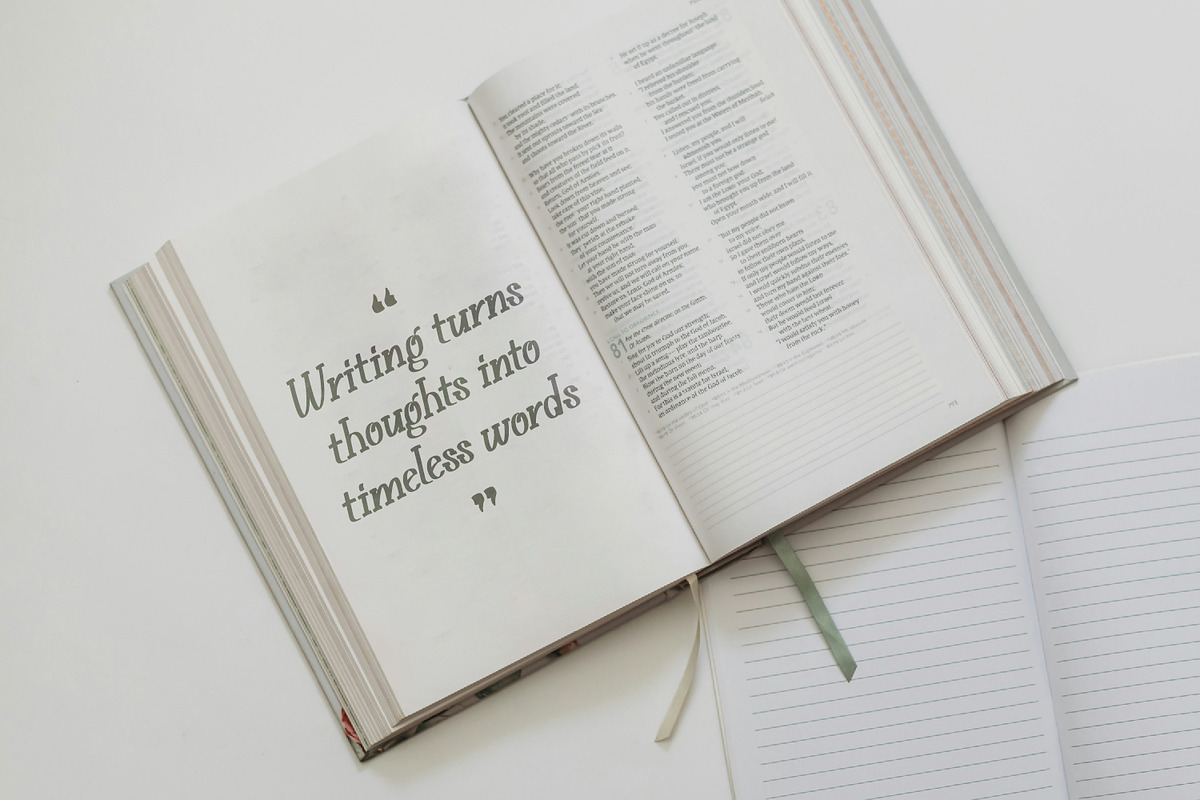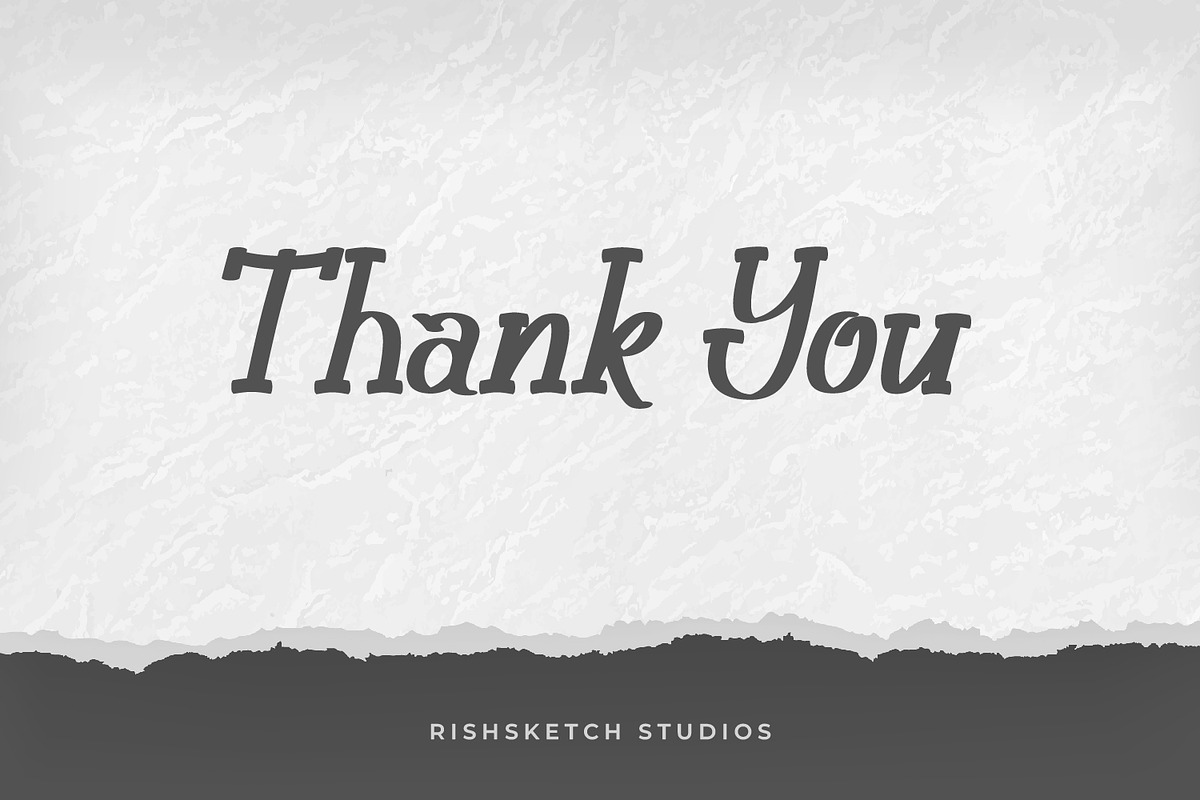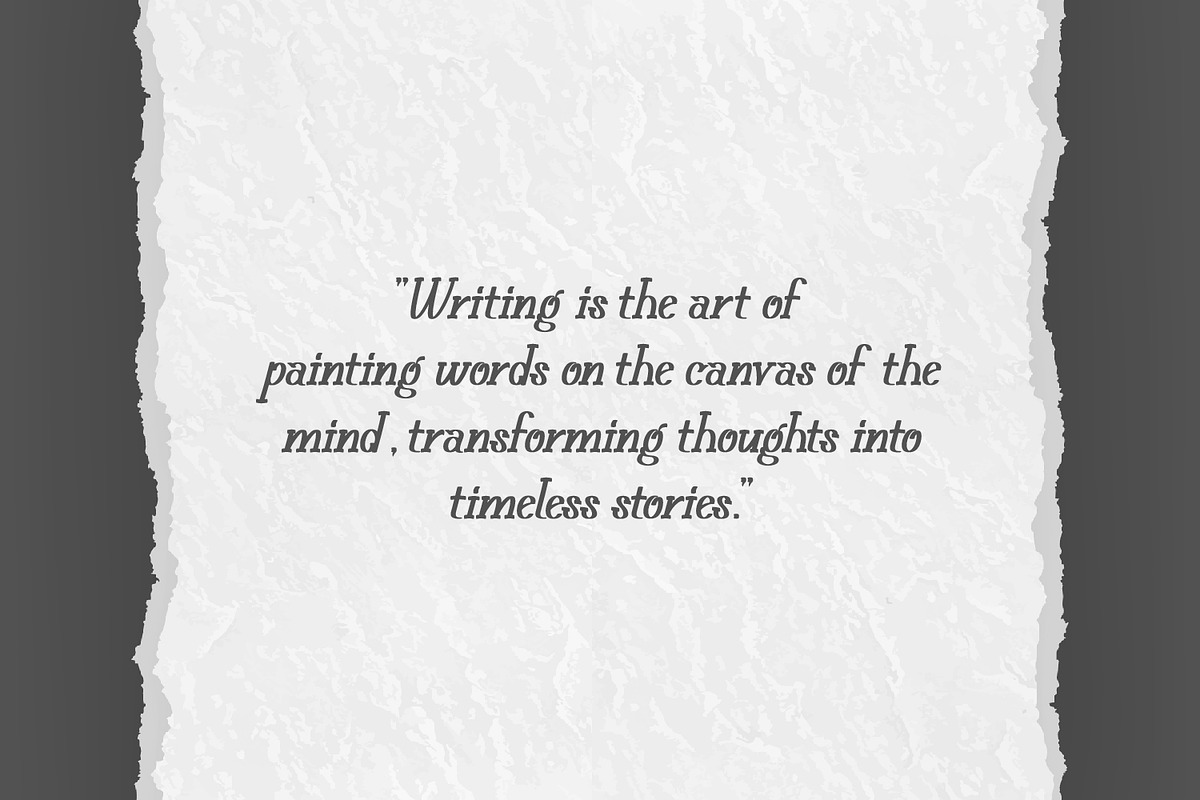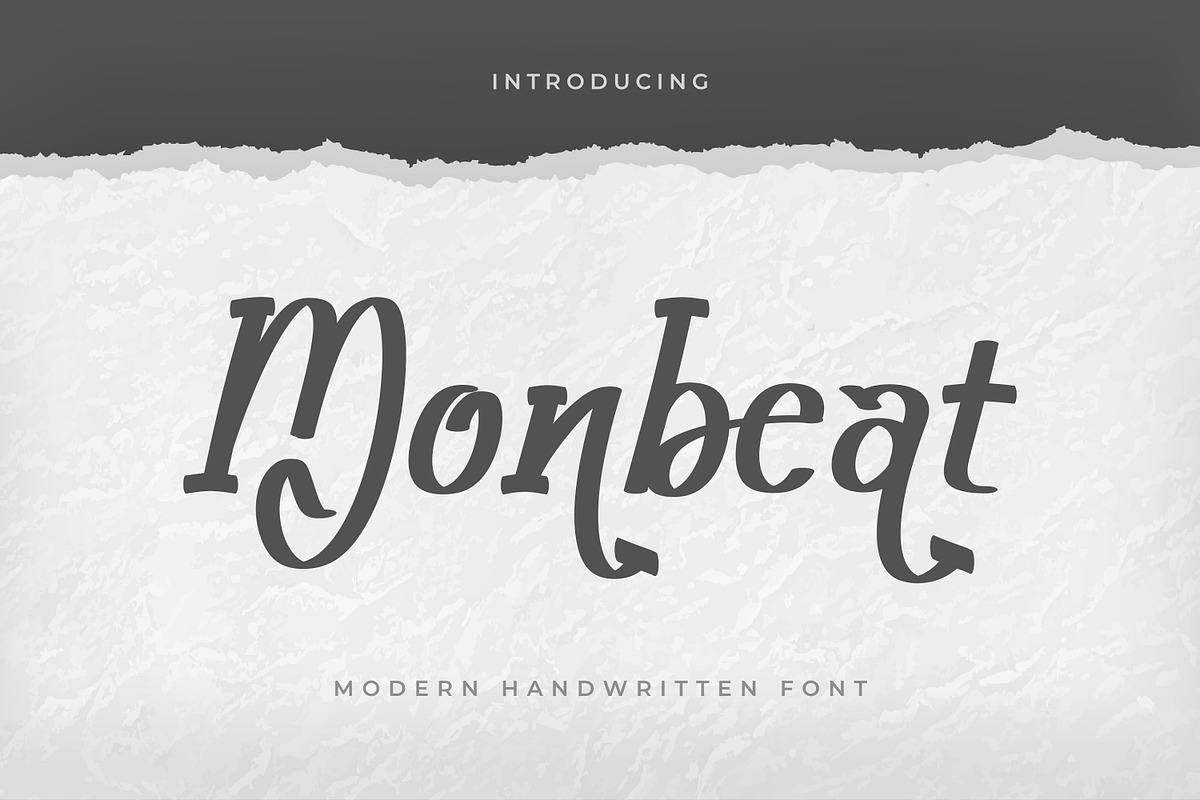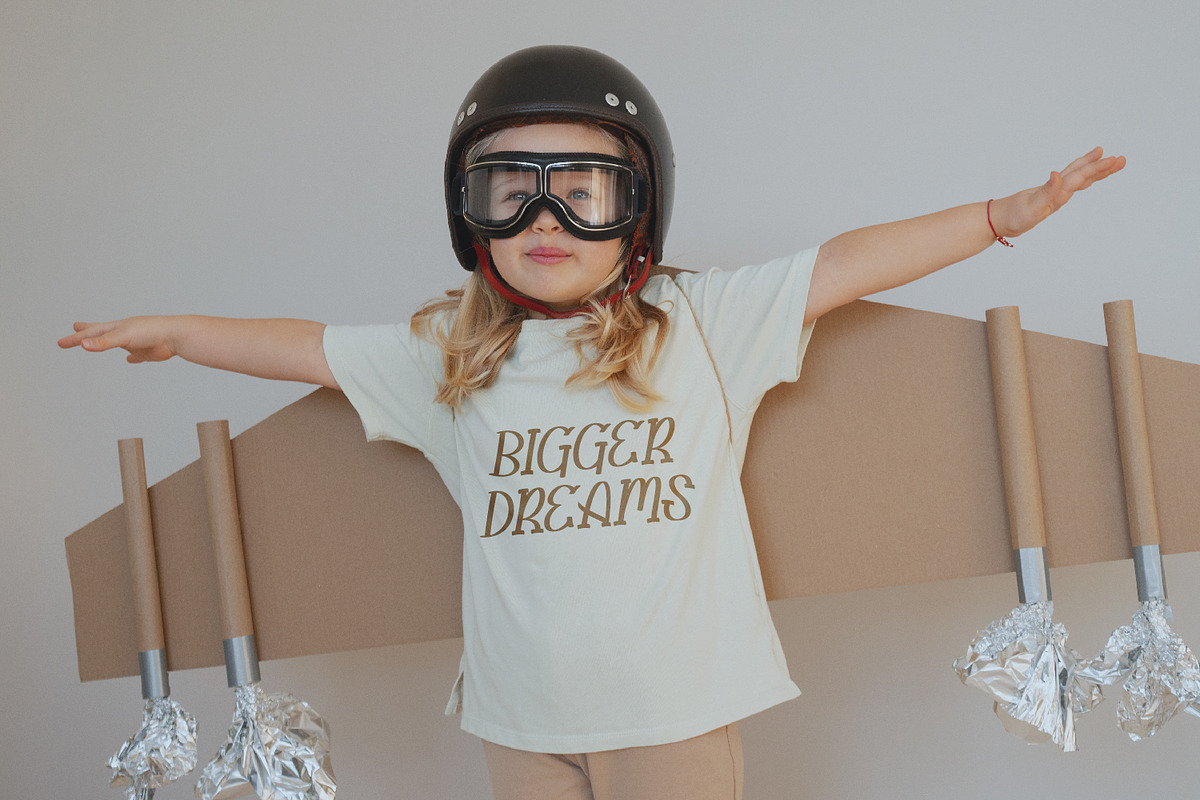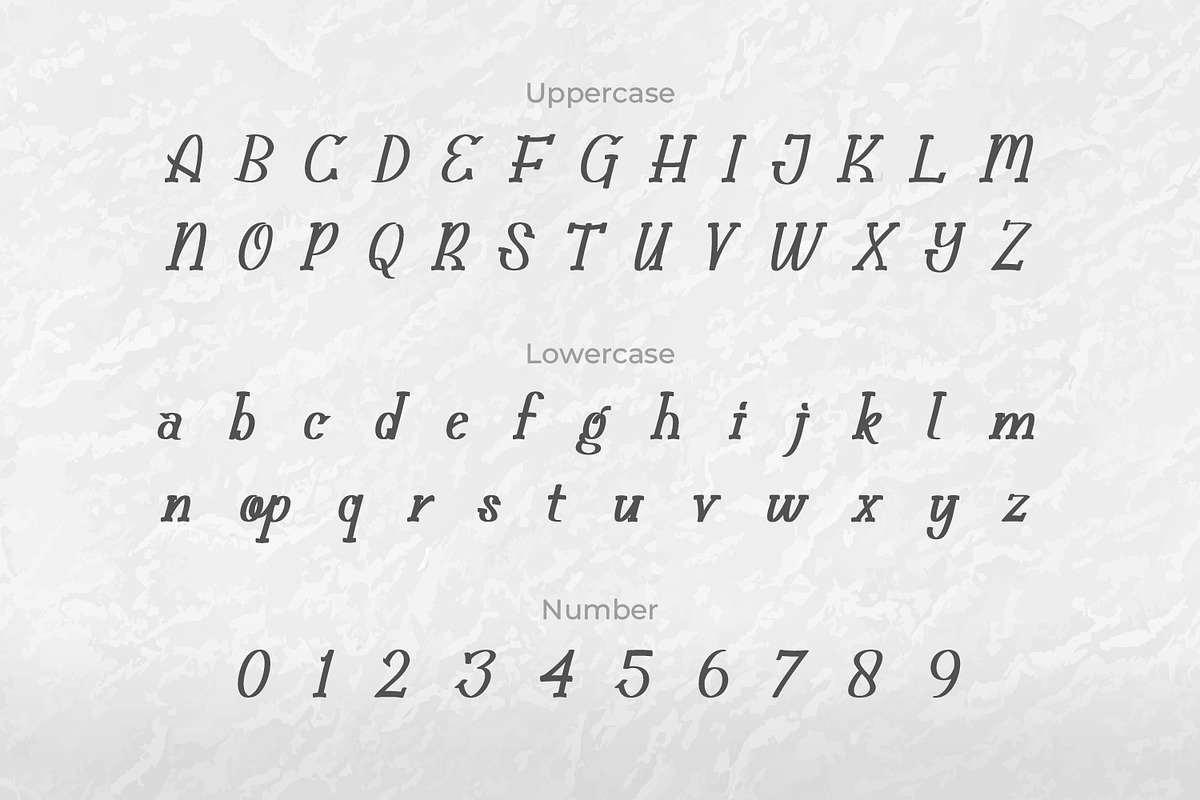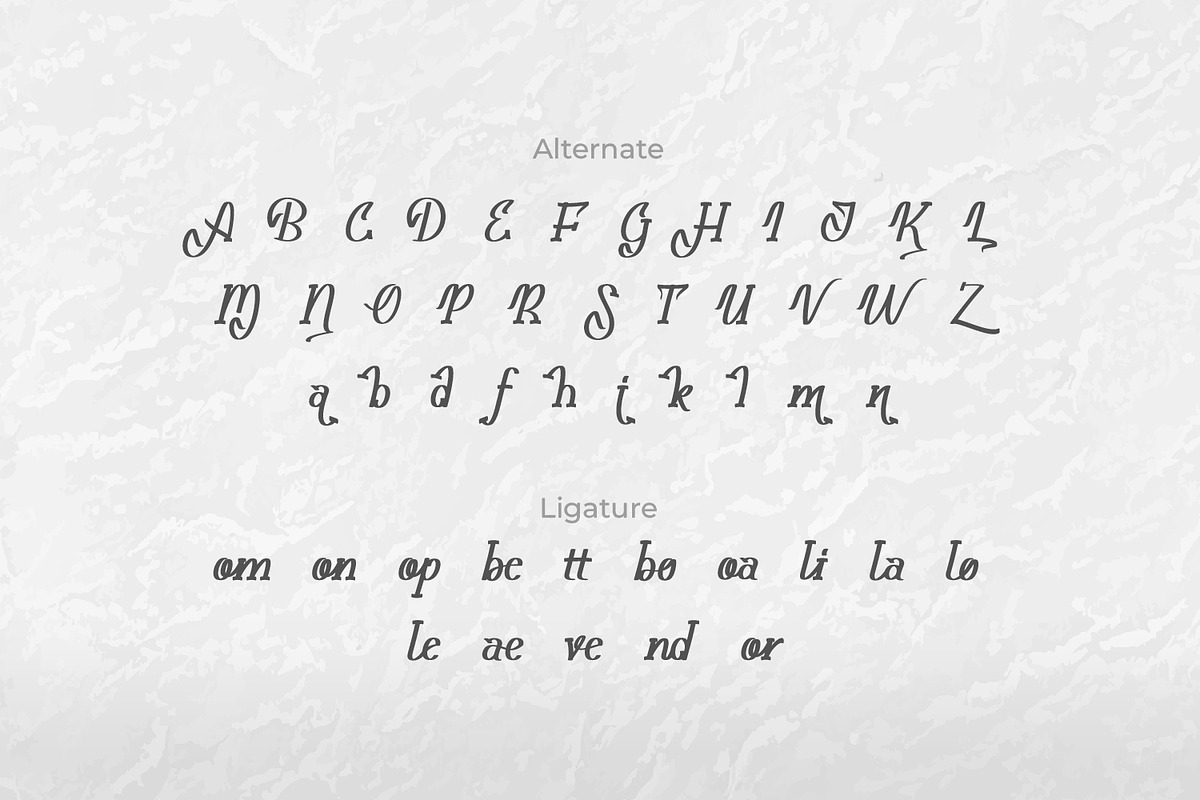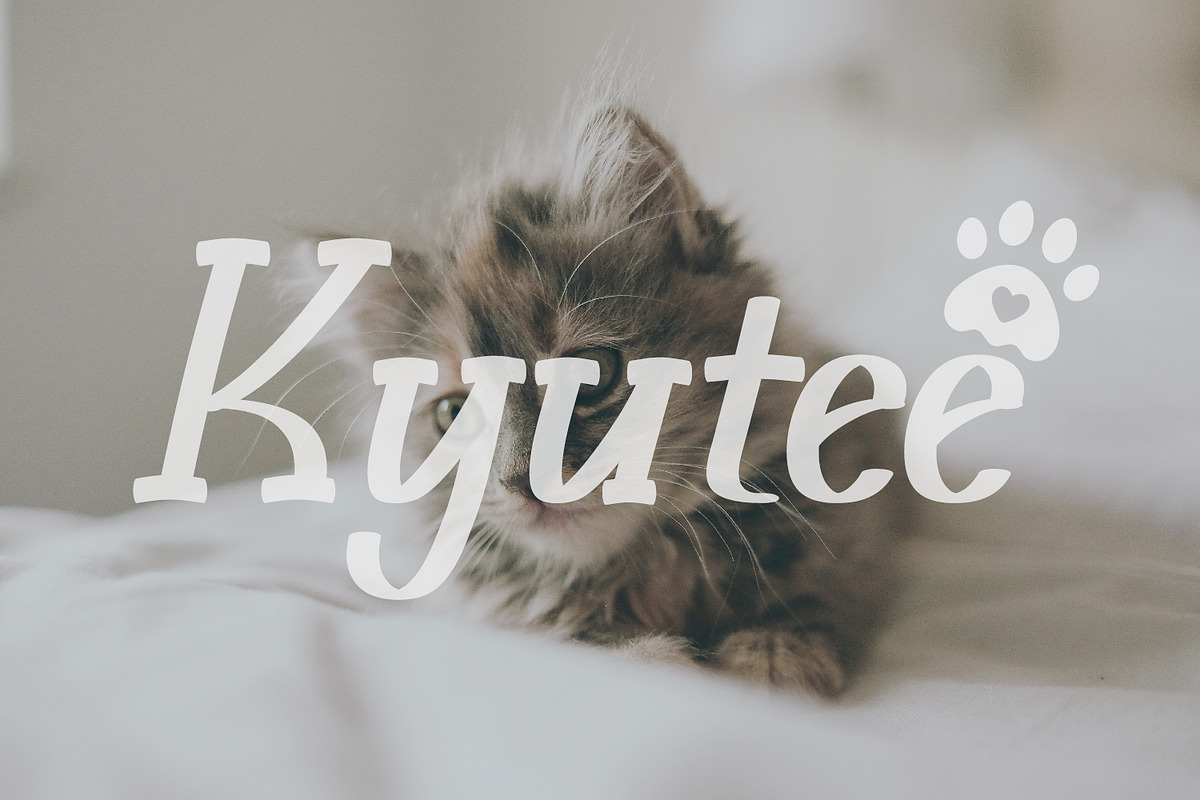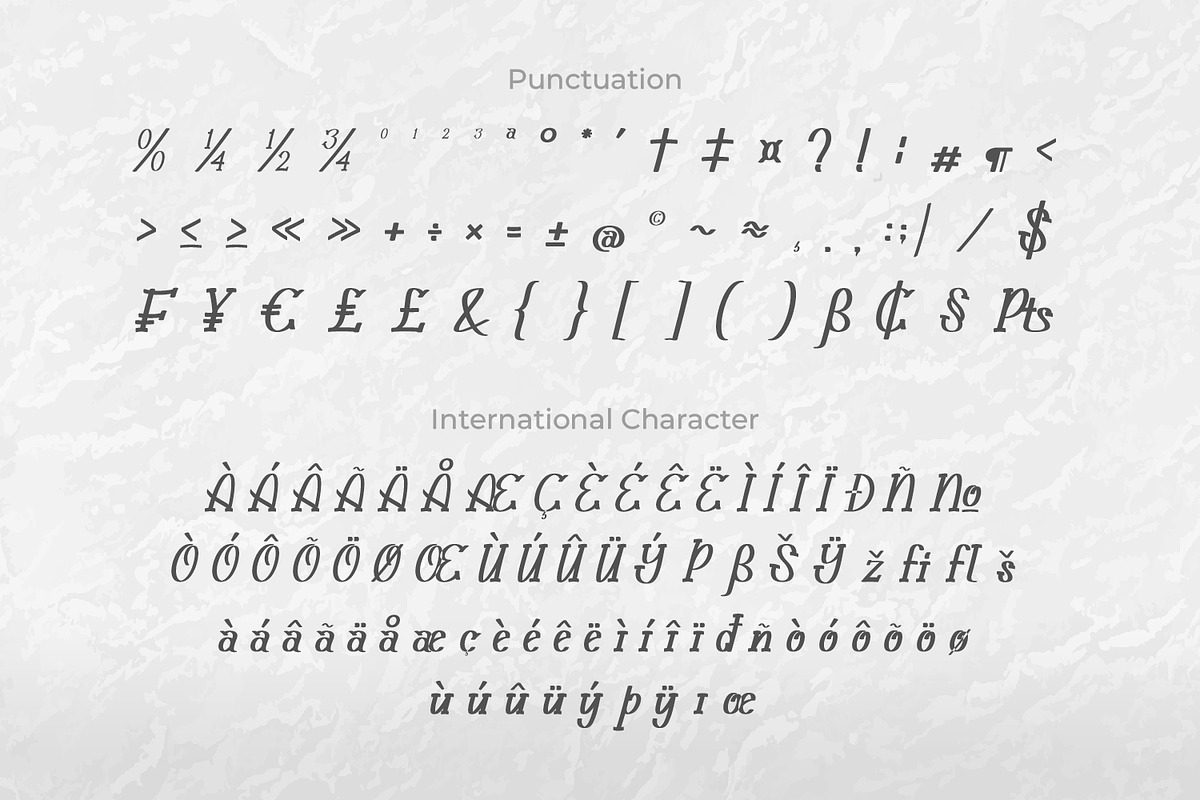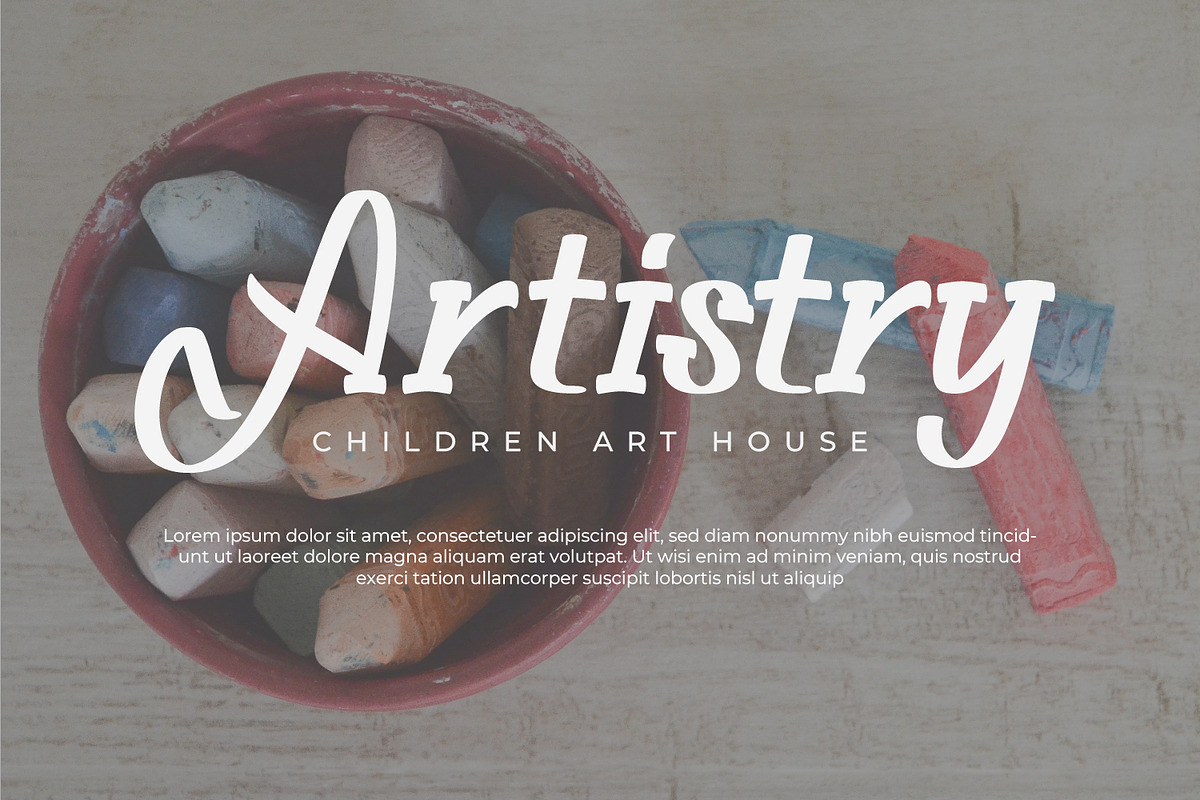
Monbeat - Modern Handwritten Script
Monbeat - Modern Handwritten Script Font, from Rishsketch Studios, is a premium Script Font, perfect for any project that requires a distinctive, and premium feel.
- Ligature, Alternate & amp; Multilingu